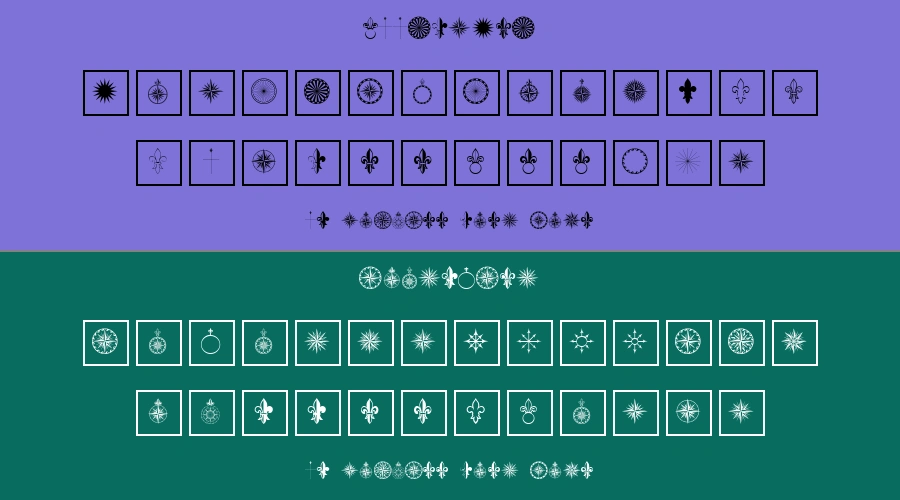
About Pr Compass Rose Font
Pr Compass Rose Font stands out for its distinctive combination of circular bowls and visual impact. Ideal for packaging hero, it provides the authenticity and market credibility that professional projects demand. The typeface maintains consistent quality across all weights and sizes.
Key features include refined dramatic weight and practical stylistic sets, enhancing typographic expression. In retail environments applications, Pr Compass Rose Font demonstrates exceptional small cap rendering. The serif length and artistic merit contribute to its distinctive character and professional appeal.